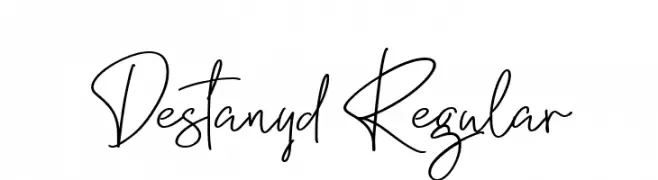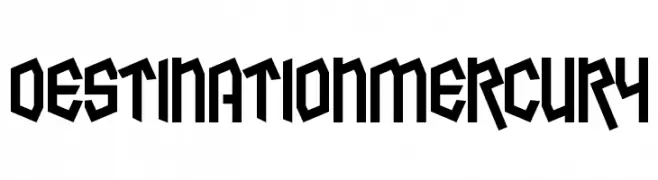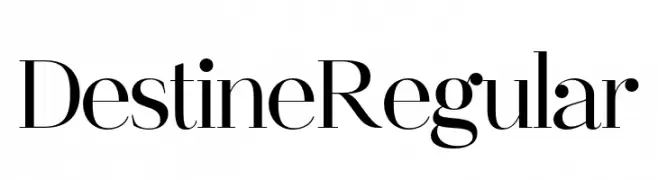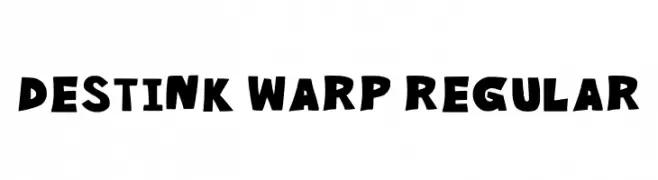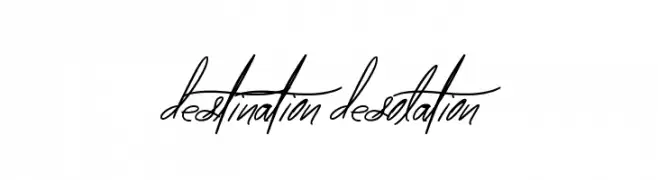
A casual, handwritten script with flowing, connected letters and subtle stroke contrast.
A bold, geometric stencil font with a modern, industrial style.
A dynamic, expressive handwritten font with fluid strokes and artistic flair.
A cursive, handwritten font with elegant, flowing strokes.
A bold, angular font with a futuristic and geometric design.
A high-contrast serif font with elegant, sharp serifs and a classic style.
A cursive, handwritten font with elegant, flowing strokes.
A playful, bold font with a warped, dynamic style.
A whimsical and artistic script font with a handwritten appearance.
An artistic script font with flowing, cursive-like lowercase letters.